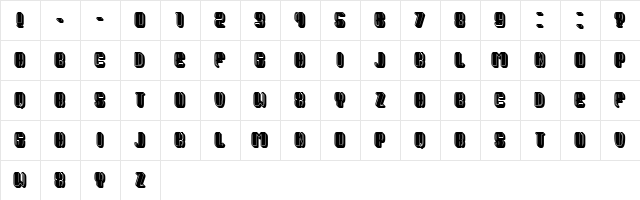
President Filled Regular
Design Context for President Filled
President Filled is a composed and adaptable typeface that performs quietly and consistently across a wide range of design contexts.